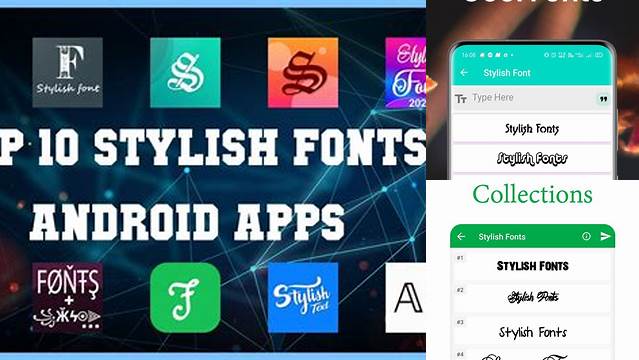
Top 10 Stylish Fonts For Android Free Download
Finding the perfect font can totally transform the look of your Android device, whether you're customizing your home screen, creating eye-catching social media posts, or just want a fresh vibe for your messages. The right font can express your personality and make everything you do on your phone a little more enjoyable. So, if you're looking to spice things up, let's dive into the top 10 stylish fonts you can download for free on Android!
1. Cool Fonts for Android Free
Cool fonts for Android free are a game-changer for anyone looking to personalize their device without spending a dime. The Google Play Store is packed with apps offering a wide array of font styles, from sleek and modern to playful and quirky. When you're browsing, look for apps with good ratings and plenty of positive reviews to ensure you're getting a safe and reliable download. Many of these apps allow you to preview the fonts before applying them, so you can see exactly how they'll look on your screen. Plus, keep an eye out for fonts that support multiple languages, especially if you frequently communicate with people from different parts of the world. Customizing your Android with cool, free fonts is an easy way to make your phone feel uniquely yours.
2. Stylish Fonts for Android Keyboard
Having stylish fonts for your Android keyboard can make typing messages and emails a lot more fun. Imagine sending texts in a cool, handwritten-style font or crafting emails with a sleek, modern typeface. Several apps on the Google Play Store offer keyboard customization options, allowing you to change the font, color, and even the keyboard layout. Some popular choices include FancyKey, Kika Keyboard, and Fonts Keyboard. These apps not only offer a variety of fonts but also come with features like emojis, GIFs, and themes to further personalize your typing experience. Just be sure to grant the necessary permissions carefully and read reviews to ensure the app is secure and doesn't compromise your privacy. With a stylish keyboard font, every message you send can be a little expression of your personality.
3. Best Font Apps for Android
Finding the best font apps for Android can feel like a treasure hunt, but it's totally worth it when you discover the perfect one. Some of the top-rated font apps include iFont, HiFont, and Fonts Keyboard. These apps offer a vast library of fonts, ranging from classic styles to trendy, modern designs. iFont, for example, is known for its compatibility with Samsung and Xiaomi devices and allows you to install custom fonts easily. HiFont boasts over 100 different fonts, including cute, dark, and color styles. Fonts Keyboard, as mentioned earlier, integrates fonts directly into your keyboard, making it simple to use them in any app. When choosing a font app, consider factors like the number of fonts available, ease of use, compatibility with your device, and user reviews. The best font app will not only give you a wide selection but also a seamless and enjoyable customization experience.
6. Android Font Changer App
An Android font changer app is your best friend when you want to give your phone a quick makeover. These apps allow you to easily switch between different fonts, customizing everything from your system font to the fonts used in specific apps. Popular font changer apps include iFont, HiFont, and Fonts Keyboard. These apps offer a wide variety of fonts, ranging from classic styles to more modern and unique designs. They typically work by installing a font package on your device and then allowing you to select the font you want to use. Some apps also offer additional customization options, such as adjusting font size and color. When choosing a font changer app, be sure to read reviews and check the app's permissions to ensure it's safe and compatible with your device. With the right font changer app, you can transform the look and feel of your Android phone in just a few taps.
7. Cool Text Styles for Android
Exploring cool text styles for Android can significantly enhance your device's aesthetic appeal. Whether you're looking to personalize your social media posts, create eye-catching presentations, or simply make your messages more expressive, the right font can make all the difference. There are numerous apps and websites that offer a vast selection of unique and stylish fonts. Some popular options include handwritten fonts, bold fonts, cursive fonts, and even fonts that mimic vintage typewriters. You can use these fonts in various apps, such as Instagram, WhatsApp, and even your device's keyboard. To find the perfect font, browse through font libraries like Google Fonts, DaFont, and FontSpace, or explore font-focused apps like Fonts Keyboard and Stylish Text. Experiment with different styles to discover the ones that best reflect your personality and enhance your digital presence.
8. Best Fonts for Android 2024
Staying updated on the best fonts for Android in 2024 can keep your device looking fresh and modern. As design trends evolve, new and exciting fonts emerge that capture the current aesthetic. Some of the top font trends for 2024 include minimalist sans-serif fonts, bold display fonts, and retro-inspired fonts. Minimalist fonts offer a clean and sophisticated look, while bold fonts can make a statement and draw attention to your text. Retro fonts, with their vintage charm, add a touch of nostalgia to your device. To discover the best fonts of 2024, explore design blogs, font websites, and social media platforms like Pinterest and Instagram. Keep an eye out for fonts that are not only stylish but also legible and easy to read on smaller screens. By incorporating these trendy fonts into your Android device, you can ensure it stays visually appealing and up-to-date.
9. Font Customization on Android
Font customization on Android allows you to personalize your device in a way that reflects your individual style and preferences. The ability to change fonts can significantly impact the overall user experience, making your phone more enjoyable to use. Android offers several ways to customize fonts, including using built-in settings, third-party apps, and custom launchers. Some Android devices, like those from Samsung and Xiaomi, have built-in font customization options that allow you to change the system font directly from the settings menu. For other devices, you can use font changer apps like iFont and HiFont, which offer a wide variety of fonts to choose from. Custom launchers, such as Nova Launcher and Apex Launcher, also provide font customization options, allowing you to change the font used throughout the launcher interface. Experiment with different fonts and customization options to create a unique and personalized Android experience.
30. How to Get Stylish Fonts on Android
So, how to get stylish fonts on Android, guys? There are a few ways to do it, and it's actually pretty easy. First, check out the Google Play Store. There are tons of apps there that let you download and install new fonts. Just search for "font installer" or "stylish fonts," and you'll find a bunch of options. Make sure to read the reviews before you download anything, just to make sure it's legit. Another way to get fonts is to download them from websites like DaFont or FontSpace. These sites have a huge selection of free fonts that you can download to your phone. Once you've downloaded the font file, you'll need to use a font manager app to install it. Some phones, especially Samsung devices, have built-in options to change the font in the settings. So, take a look around your settings menu and see if you can find it. Experiment with different fonts and find the ones that you love! It's a fun way to personalize your phone and make it your own.